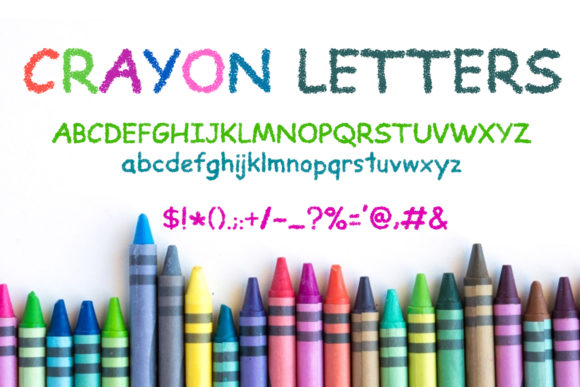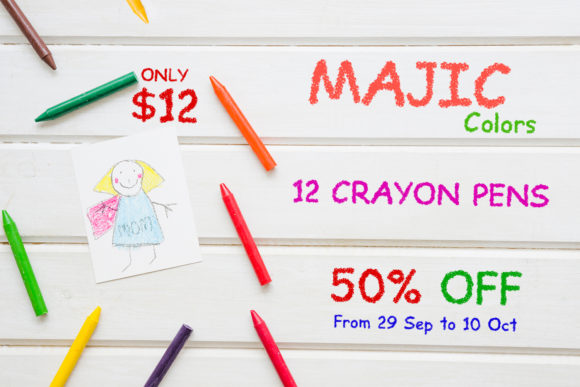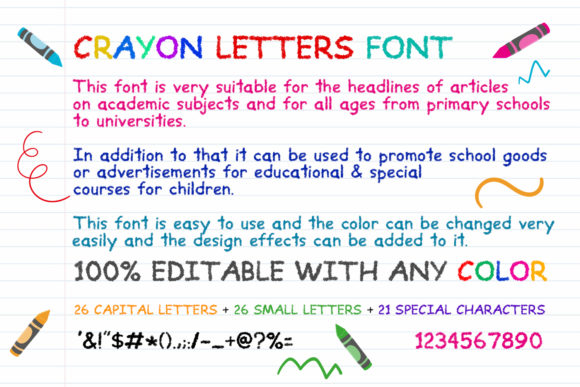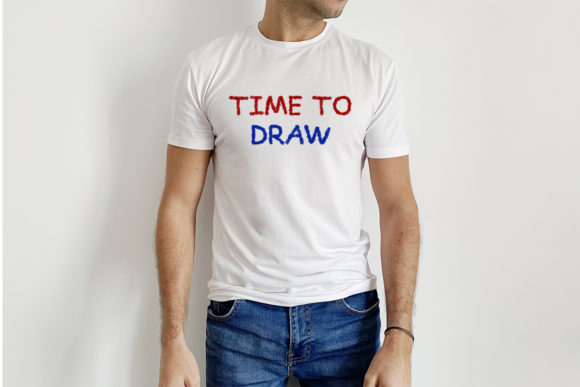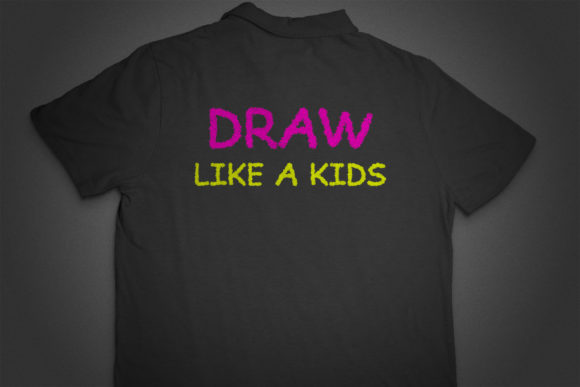
Crayon Letters Font
About Crayon Letters Font
Crayon Letters is a beautiful and unique handwritten font. This simple yet colorful font is a wonderful choice for a wide variety of designs!